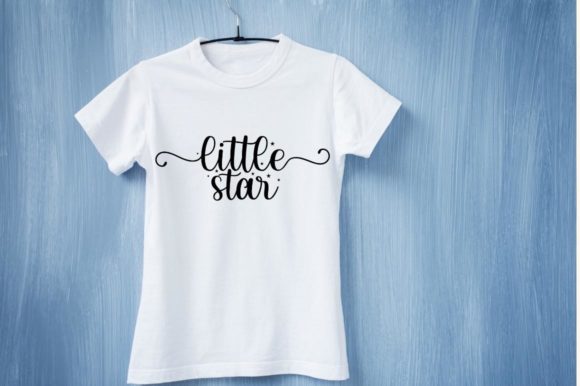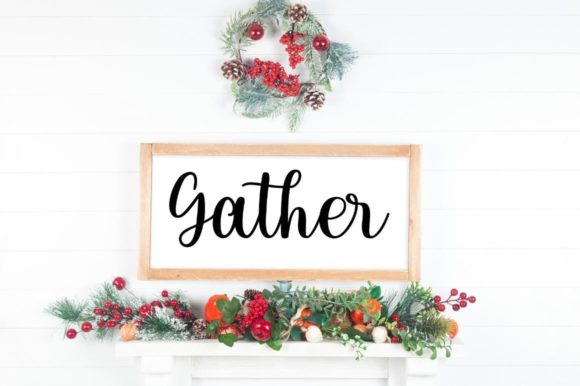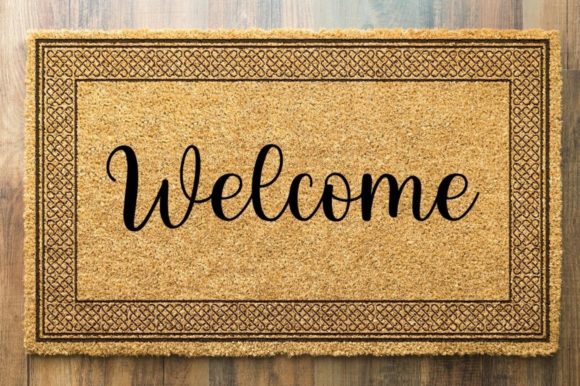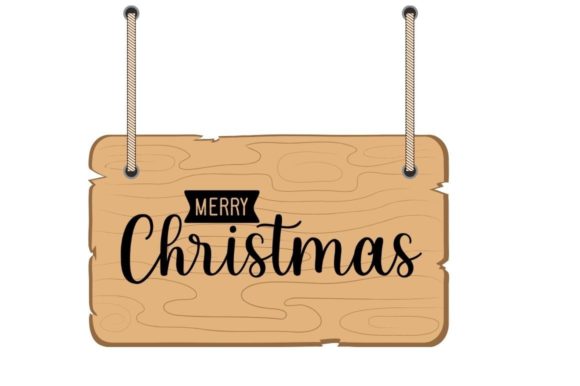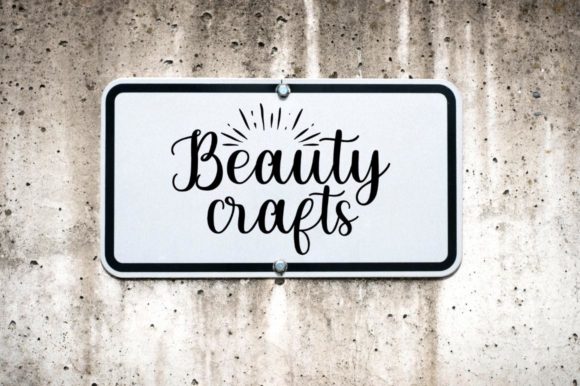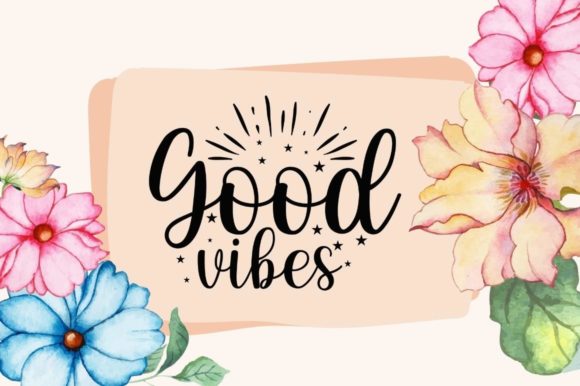
Introducing Black Sweety Script Font: Elevate Your Designs with Elegance
Are you a designer, crafter, or DIY enthusiast looking for a font that can add a touch of sophistication and charm to your projects? Look no further than the Black Sweety Script Font. This lovely script font is perfect for a wide range of applications, from SVG designs and shirts to crafts, Procreate, Cricut projects, branding, blogs, logos, invitations, and more.
What Makes Black Sweety Script Font Special?
The Black Sweety Script Font is a beautifully designed font that boasts a range of features that make it ideal for various design projects. Here are some of its key characteristics:
• Versatile: The Black Sweety Script Font is incredibly versatile and can be used for a wide range of projects, from digital designs to physical products.
• Elegant: The font features an elegant and sophisticated design that is sure to impress. Its script style is perfect for adding a touch of class and refinement to your projects.
Uses for Black Sweety Script Font
The Black Sweety Script Font is perfect for a variety of design projects, including:
• SVG Designs: Use the font to create stunning SVG designs that can be used for cutting machines, such as Cricut and Silhouette.
• T-Shirts and Apparel: Add a touch of elegance to your t-shirt and apparel designs with the Black Sweety Script Font.
• Crafts: Use the font to create beautiful crafts, such as cards, gift tags, and other paper crafts.
• Procreate and Digital Art: The font is perfect for use in Procreate and other digital art programs.
• Cricut Projects: Use the font to create stunning Cricut projects, such as vinyl decals, iron-on designs, and more.
• Branding and Logos: The Black Sweety Script Font is perfect for use in branding and logo designs, adding a touch of sophistication and elegance.
• Blogs and Websites: Use the font to add a touch of class and refinement to your blog or website.
• Invitations and Stationery: The font is perfect for use in invitations, stationery, and other paper products.
Benefits of Using Black Sweety Script Font
There are many benefits to using the Black Sweety Script Font in your design projects. Here are a few:
• High-Quality Design: The font features a high-quality design that is sure to impress.
• Versatility: The font is incredibly versatile and can be used for a wide range of projects.
• Time-Saving: The font can save you time and effort, as it can be used to create a wide range of designs quickly and easily.
In conclusion, the Black Sweety Script Font is a beautiful and versatile font that is perfect for a wide range of design projects. Its elegant design, PUA encoding, and ease of use make it an ideal choice for designers, crafters, and DIY enthusiasts. Whether you’re creating SVG designs, t-shirts, crafts, or digital art, this font is sure to elevate your designs and add a touch of sophistication and charm.